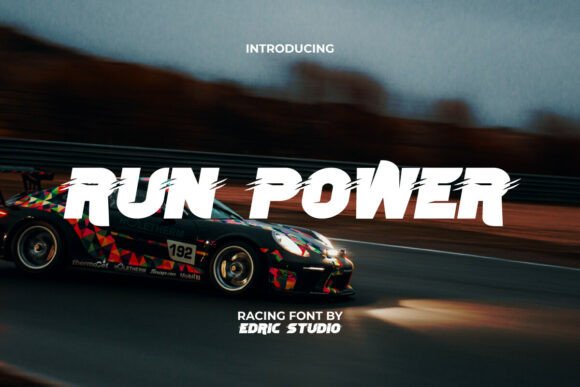
Introducing Run Power Font: The Ultimate Racing Sporty Dynamic Display Font
In the world of typography, fonts play a crucial role in conveying the tone and personality of a brand or design. For those looking to create racing sports-themed designs that exude power, speed, and energy, the Run Power Font is an excellent choice. This dynamic display font is specifically designed with a sense of speed in mind, making it perfect for creating visually stunning designs that capture the essence of racing and sports.
Key Features of Run Power Font
- Dynamic and Sporty Design: Run Power Font boasts a unique, sporty design that conveys a sense of speed and dynamism, making it ideal for racing sports-themed designs.
- Powerful Looks: With its bold and edgy appearance, this font is sure to give your designs a powerful and energetic look that grabs attention.
Design Applications of Run Power Font
The Run Power Font is incredibly versatile and can be used in various design applications. Here are some examples:
- Racing Sports-Themed Designs: Create stunning racing sports-themed designs, such as posters, flyers, and brochures, that capture the essence of speed and competition.
- Logo Design: Use Run Power Font to create bold and dynamic logos for sports brands, racing teams, or fitness centers.
- Packaging Design: Add a sporty touch to your product packaging with Run Power Font, perfect for energy drinks, sports equipment, or apparel.
- Website Design: Create a powerful and energetic website design for sports-related businesses or blogs with Run Power Font.
Typography Tips for Using Run Power Font
To get the most out of Run Power Font, here are some typography tips to keep in mind:
- Use it Boldly: Run Power Font is designed to make a statement, so don’t be afraid to use it in bold and large sizes to create a lasting impression.
- Contrast is Key: Pair Run Power Font with a clean and simple font to create contrast and make your design stand out.
- Experiment with Colors: Run Power Font looks great in bold and bright colors, so don’t be afraid to experiment with different color schemes to match your brand or design.
Benefits of Using Run Power Font
Here are some benefits of using Run Power Font for your design projects:
- Unique and Memorable: Run Power Font is a unique and memorable font that will help your designs stand out from the crowd.